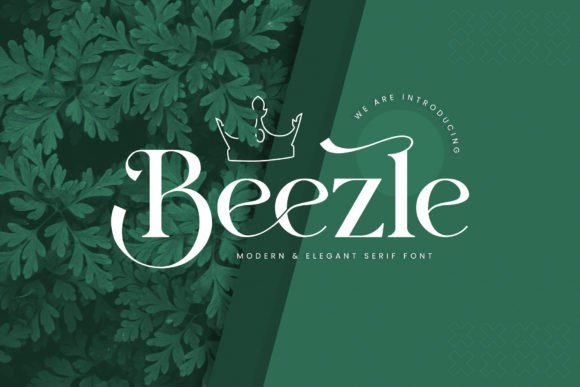
Dive into the world of timeless typography with Beezle Serif, the sophisticated and elegant font that adds a touch of refinement to your designs. Crafted with meticulous attention to detail, this serif masterpiece evokes a sense of balance, smoothness, and grace in every character.
Transport your designs to a realm of elegance with Beezle Serif. Its poised and polished aura seamlessly blends classic and modern aesthetics, making it an ideal choice for a wide range of projects. From the intricate swirls of invitation cards to the bold statements of company logos, Beezle Serif effortlessly elevates your designs with its timeless appeal.
Unleash your creativity with the versatility of Beezle Serif. Its meticulously designed alternates and ligatures provide endless possibilities to create captivating compositions. Whether you're crafting movie titles that capture the essence of cinematic grandeur or designing business cards that exude professionalism, Beezle Serif is your trusted ally in creating unforgettable impressions.
With Beezle Serif, you're not just adding a font to your collection; you're embarking on a journey of limitless artistic expression. Its graceful serifs add a touch of sophistication to book titles, while its stylish curves lend an air of elegance to brand names. Let Beezle Serif be your muse as you create designs that resonate with your audience.
Embrace the beauty of typography with Beezle Serif, the font that transforms your designs into works of art. Its PUA encoding grants you effortless access to a treasure trove of glyphs and ligatures, empowering you to breathe life into your creative visions. Unlock the full potential of Beezle Serif and witness the transformation of your designs into captivating masterpieces.